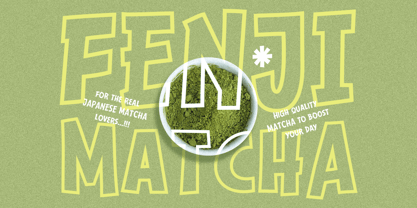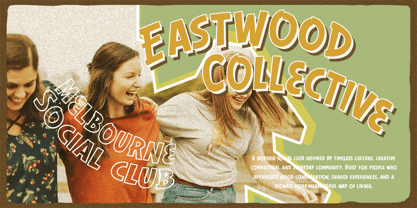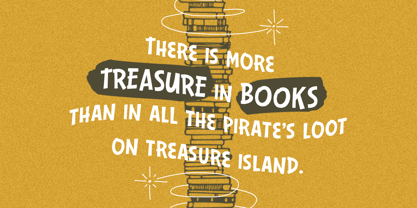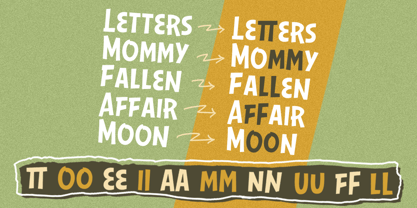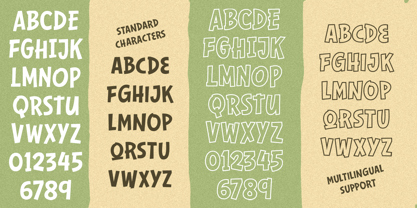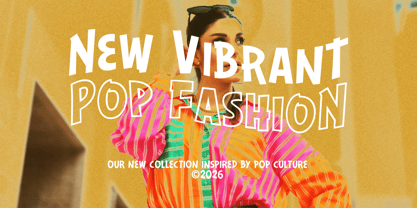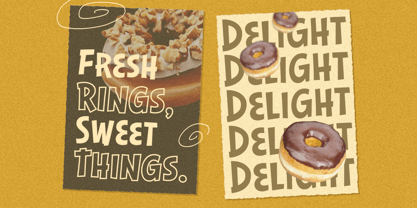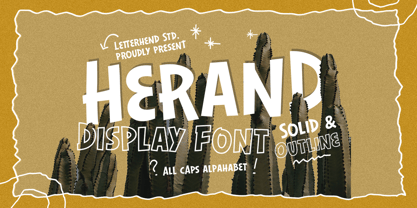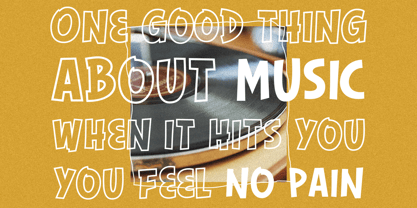
Herand
by Letterhend
The Herand Font Family was designed by Hendry Juanda and published by Letterhend. Herand contains 2 styles and family package options. More about this family
Herand brings a bold handcrafted spirit with playful uneven shapes and a relaxed handmade attitude. The chunky all-caps letters feel friendly, casual, and full of character, while the solid and outline styles make it easy to mix, layer, and create eye-catching designs.
Features :
• Uppercase & lowercase
• Numbers and punctuation
• Alternates & Ligatures
• Multilingual Support
Designers: Hendry Juanda
Foundry: Letterhend